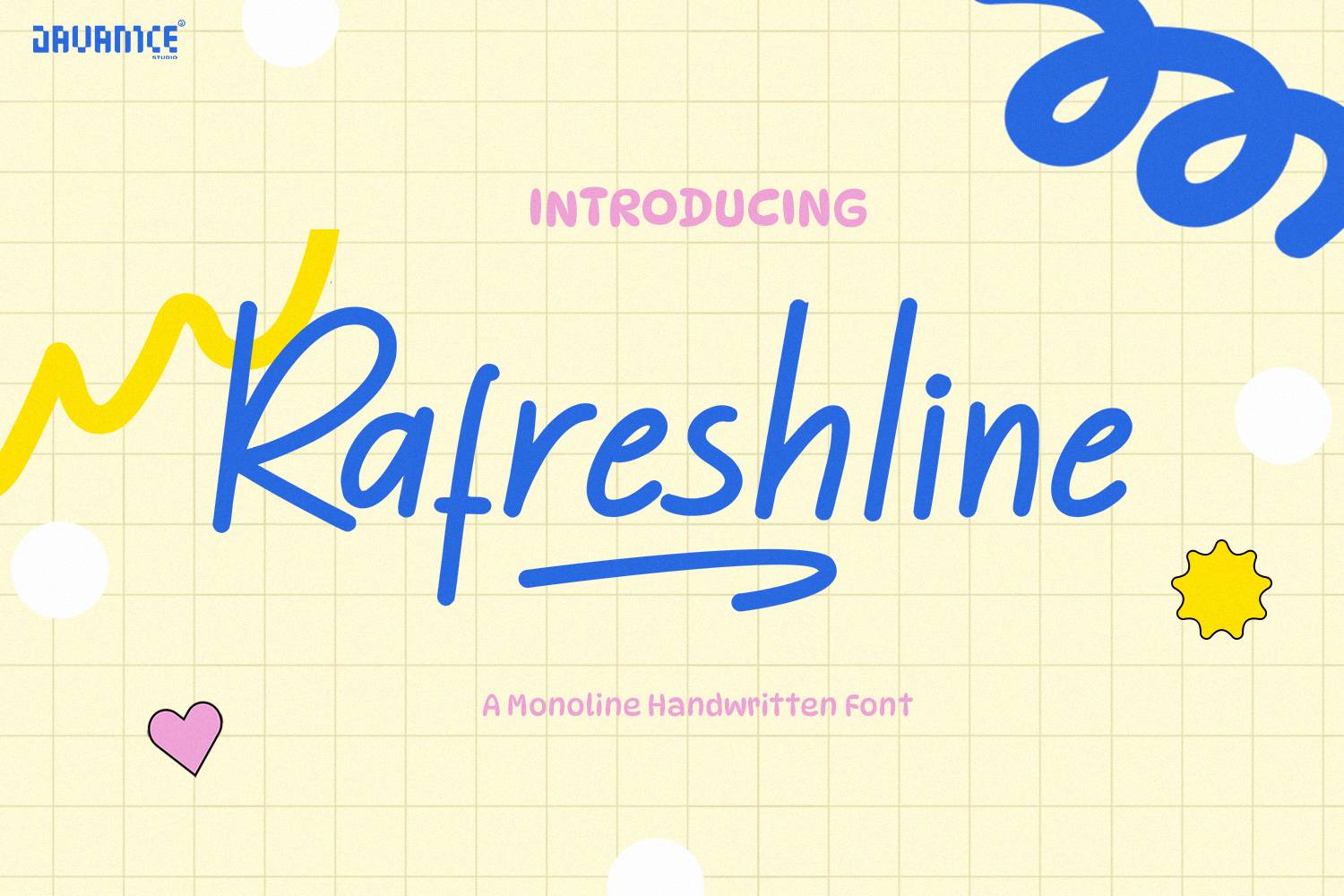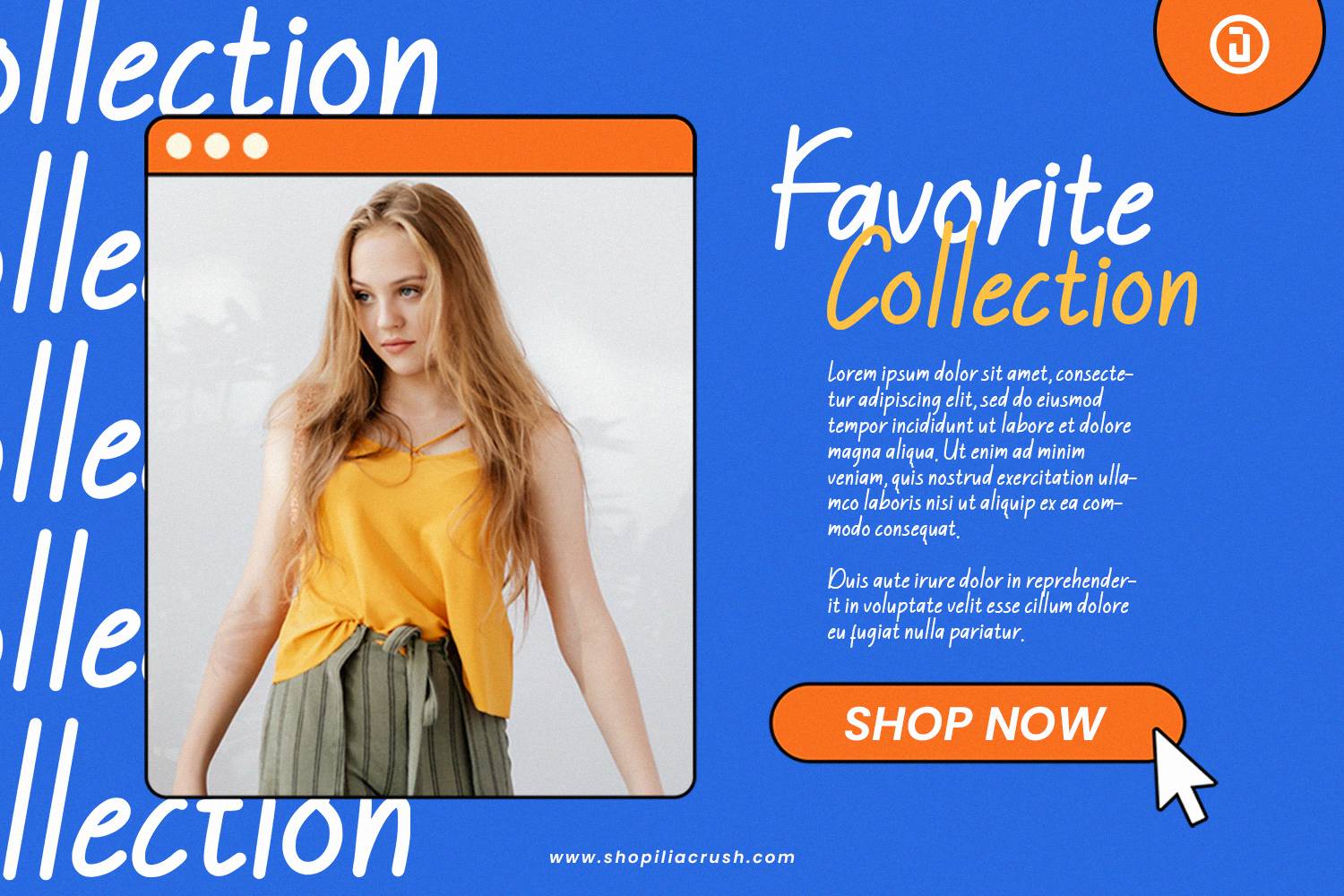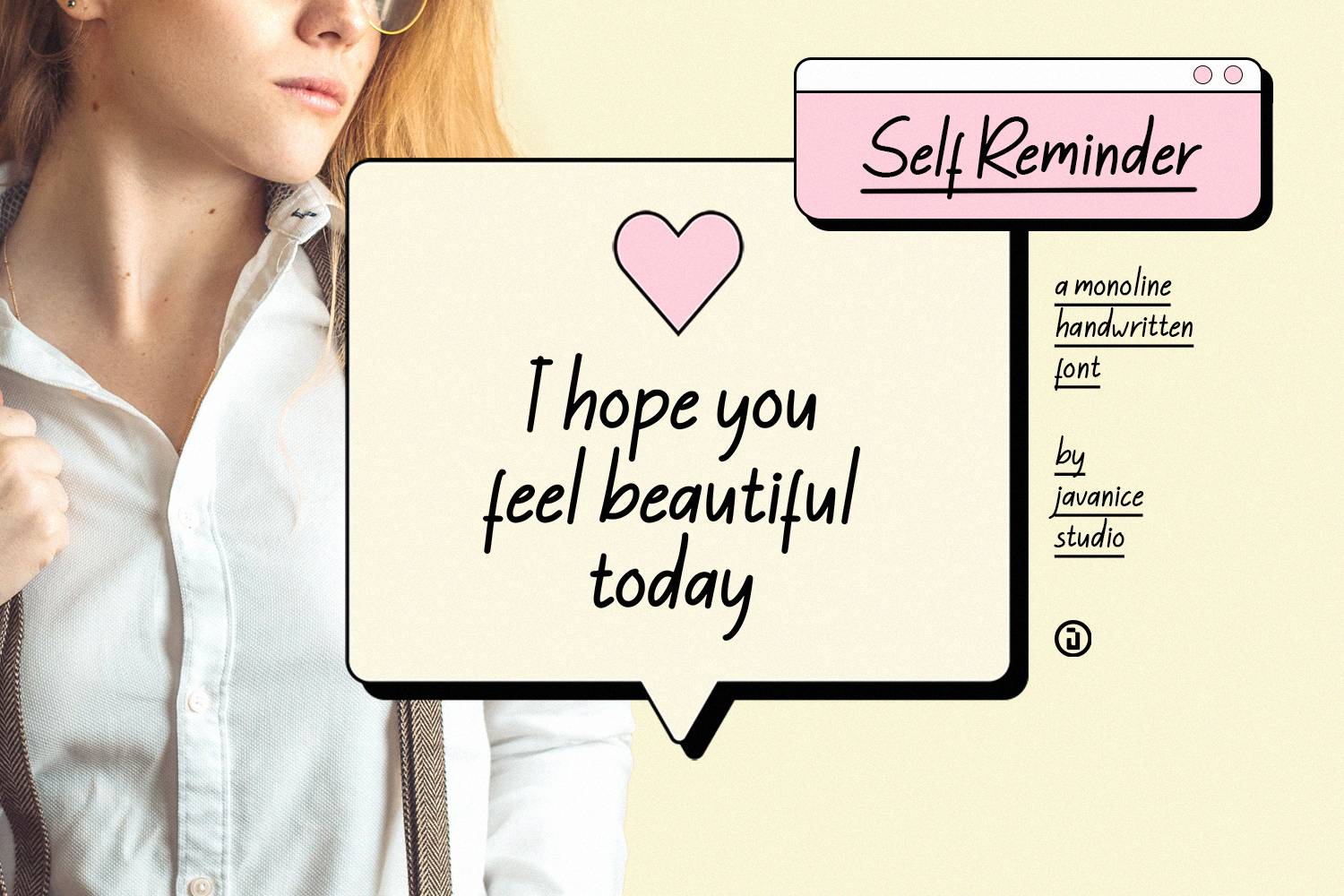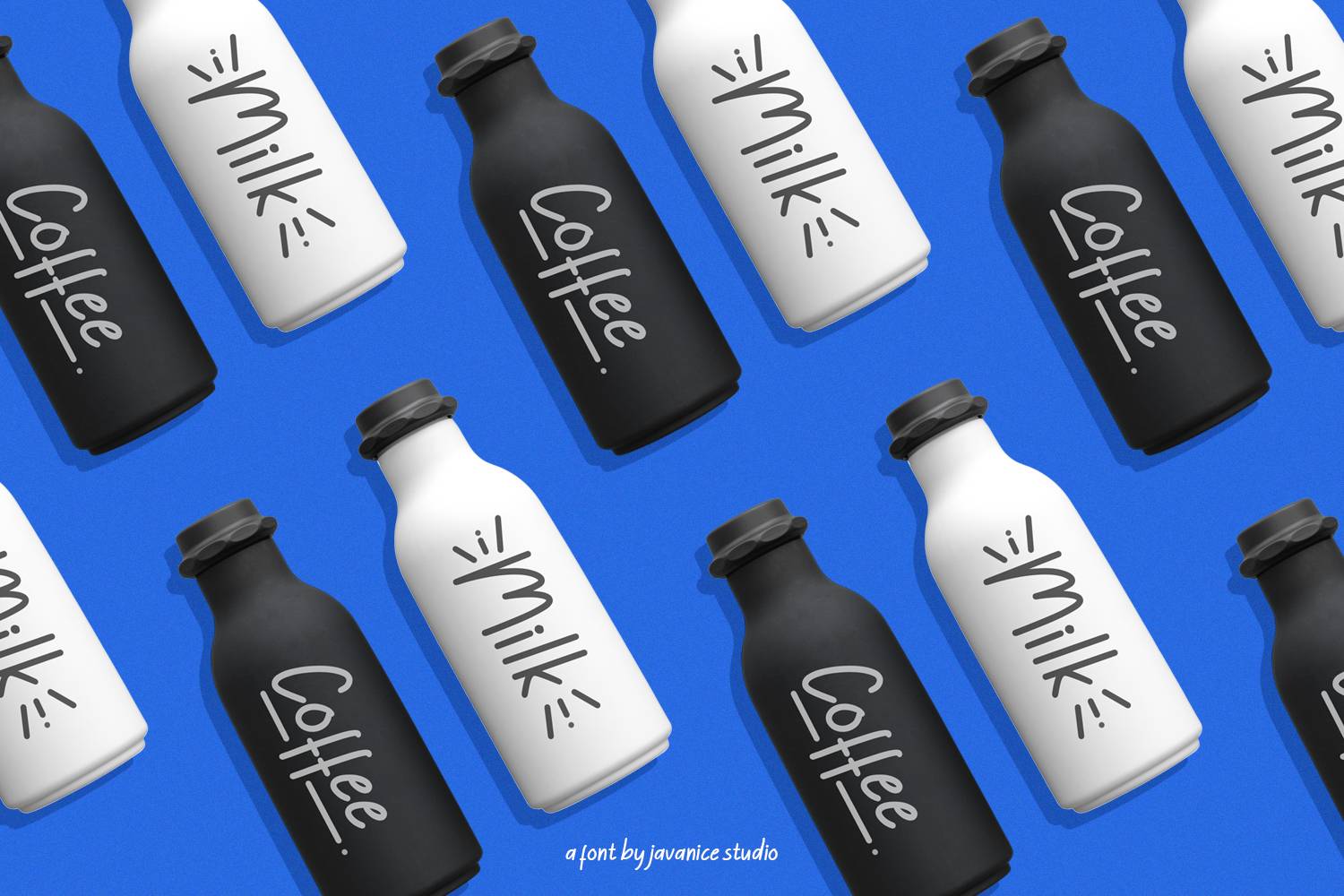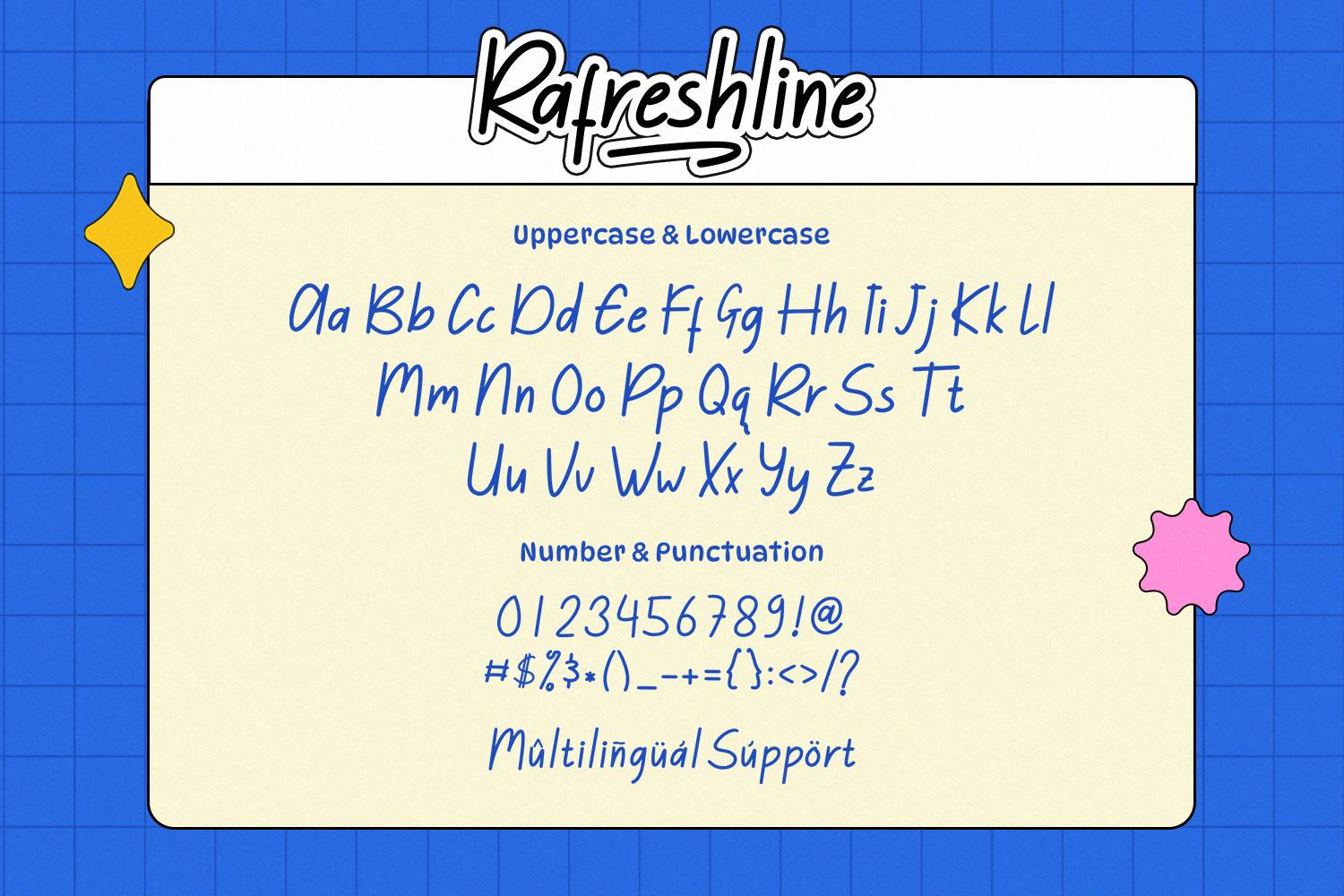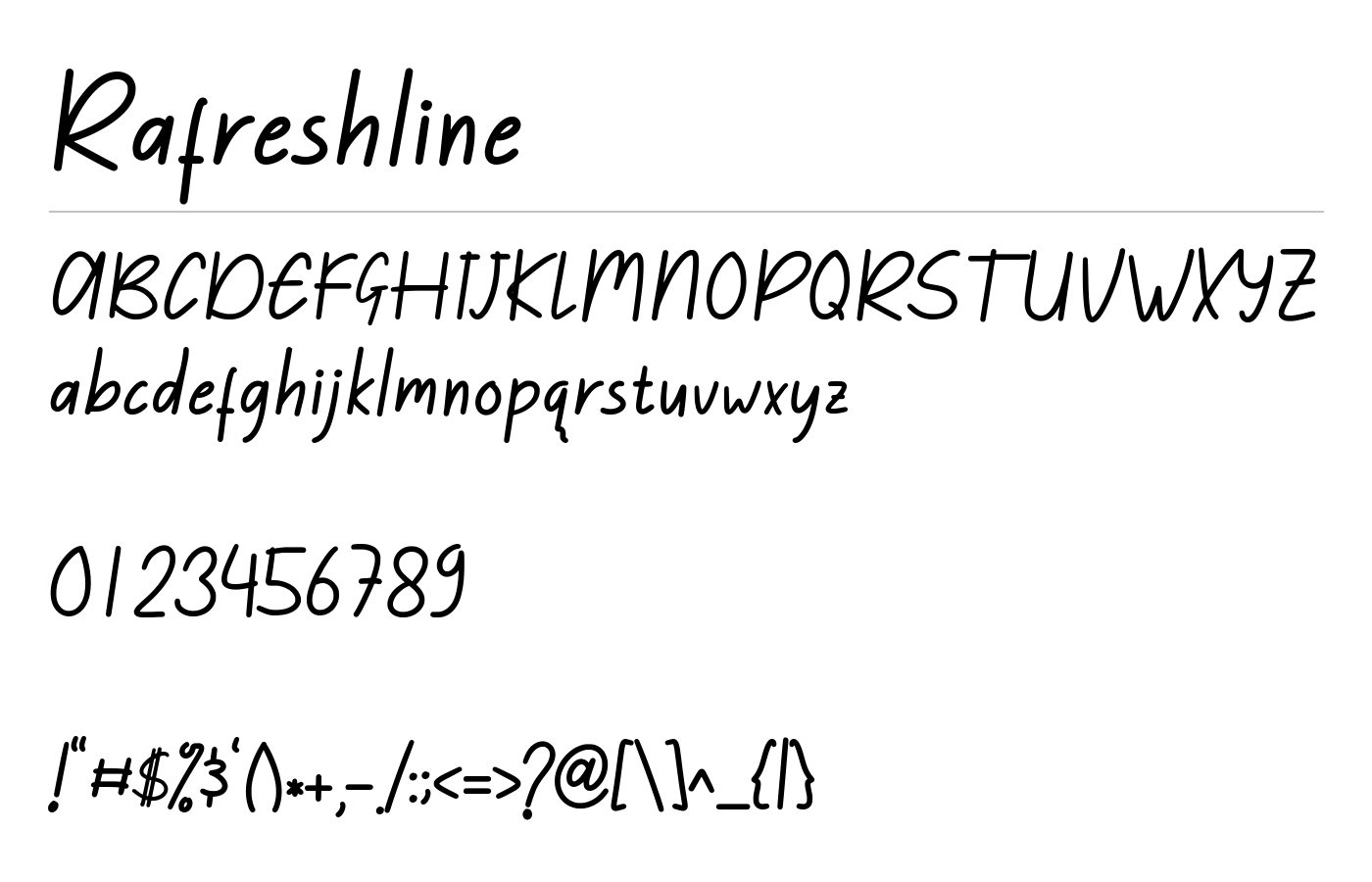
Rafreshline is a casual, handwritten sans serif font with a friendly and approachable style. Its narrow, slightly irregular letterforms and moderate x-height give it a lively, personal feel, making it perfect for creative projects, informal branding, and playful design contexts. This font works well for logos, invitations, and websites that seek a warm, human touch without sacrificing readability.
Rafreshline Font
About Rafreshline Font
| Font family | Rafreshline Font |
| Designer | javanicestudio |